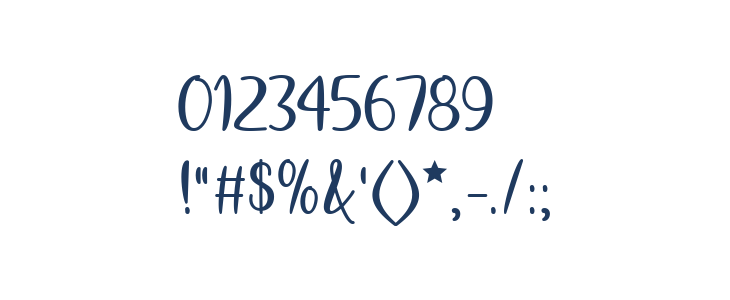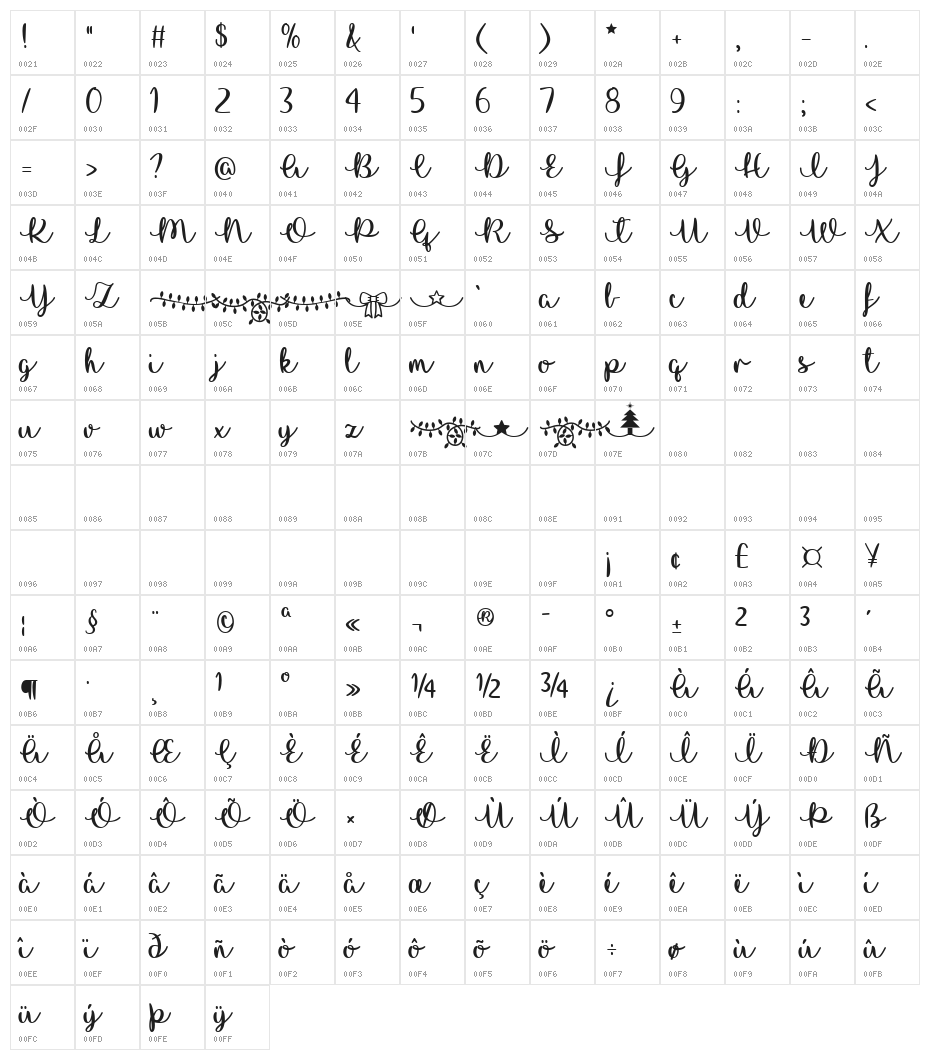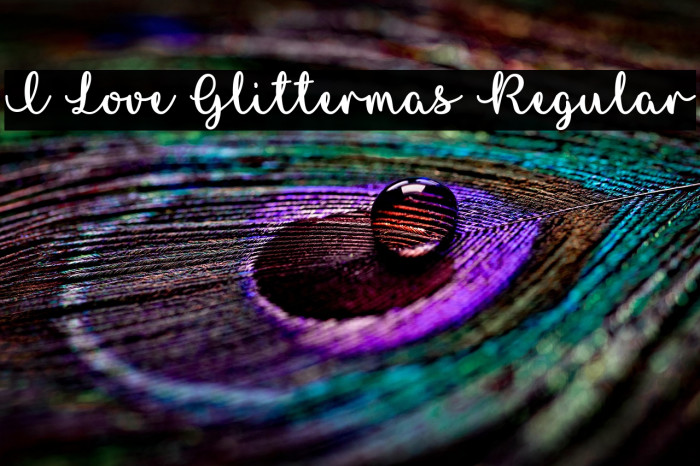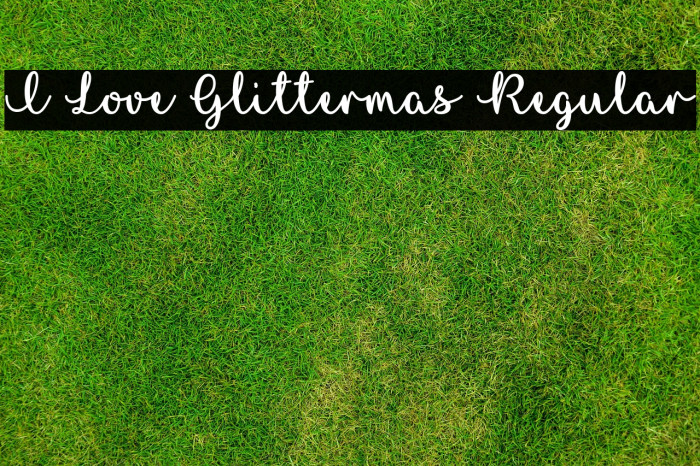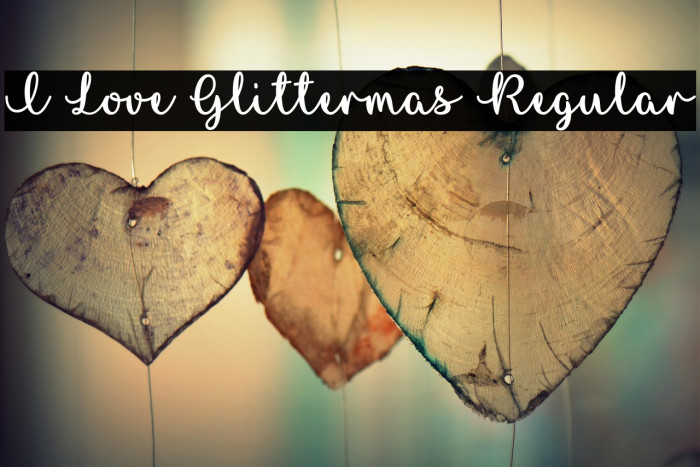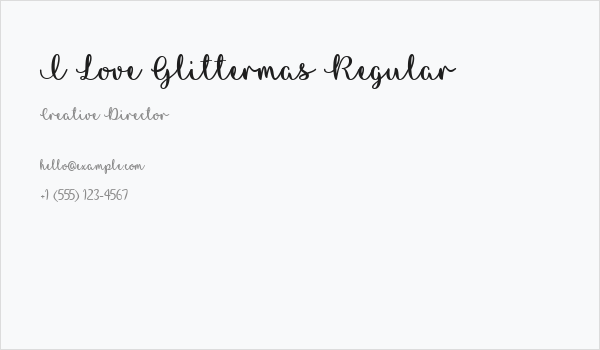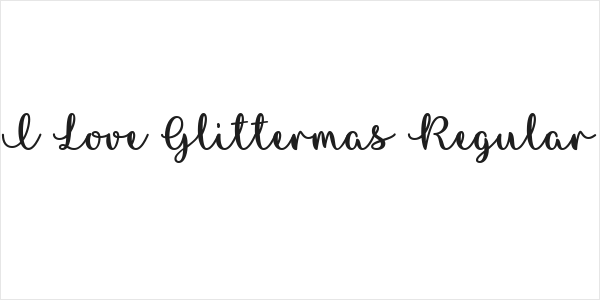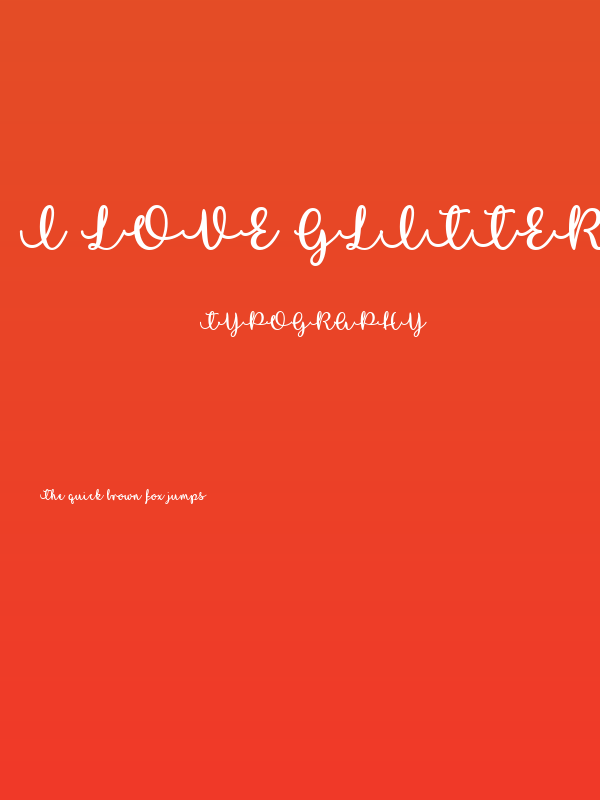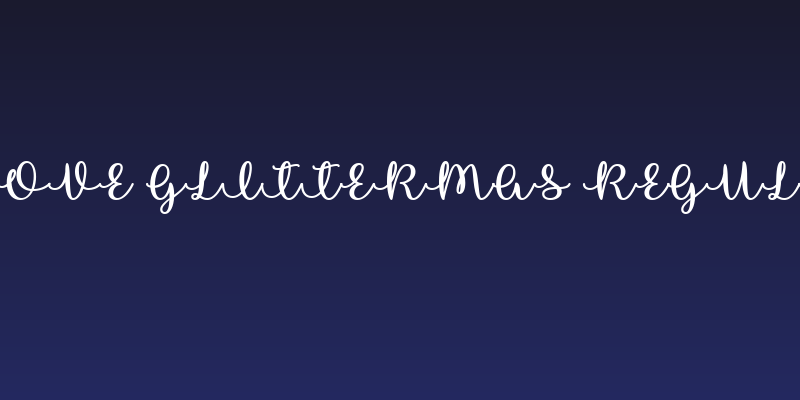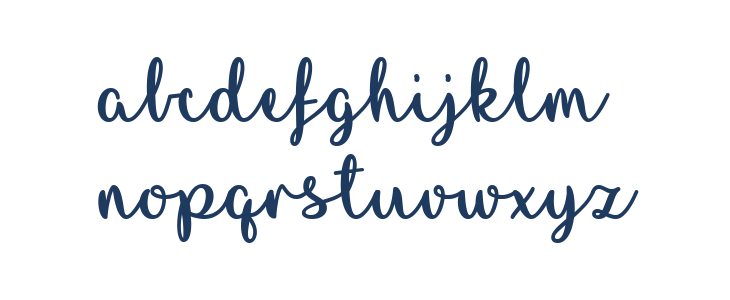
I Love Glittermas Regular Font
I Love Glittermas Regular Description
This font features a playful and whimsical script style, characterized by its flowing, interconnected letters that mimic a handwritten aesthetic. The uppercase letters are slightly more embellished, with loops and curls that add a touch of elegance. The lowercase letters maintain a consistent flow, enhancing readability while retaining a casual charm. The numbers are bold and clear, making them suitable for various applications. Special characters are creatively designed, adding a unique flair to the overall appearance. The font's style is ideal for projects that require a personal, friendly touch, such as invitations, greeting cards, and creative branding.